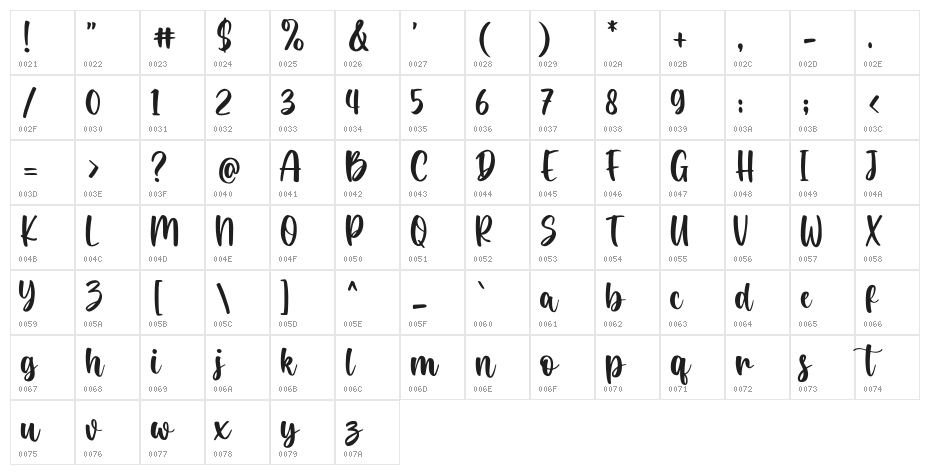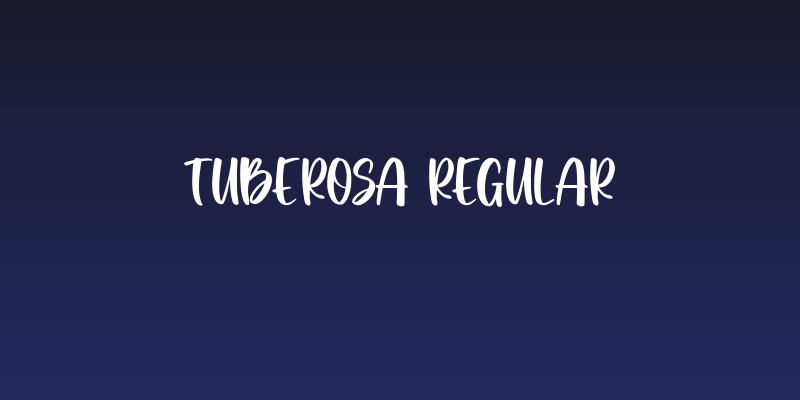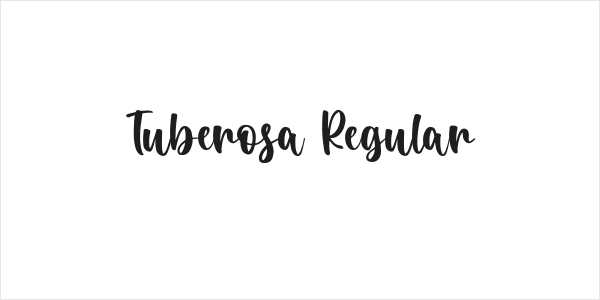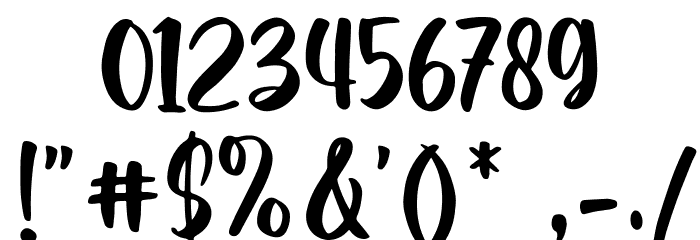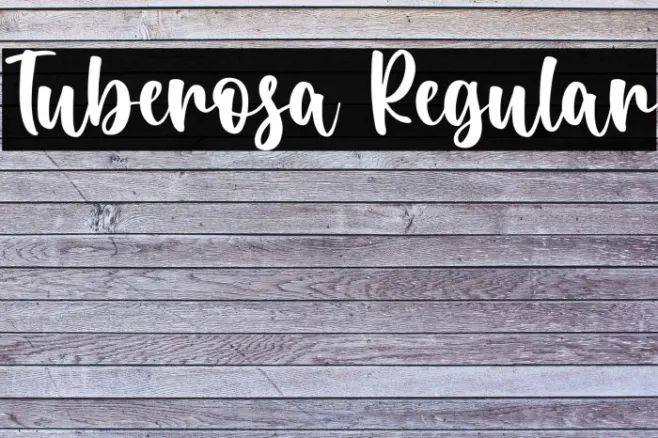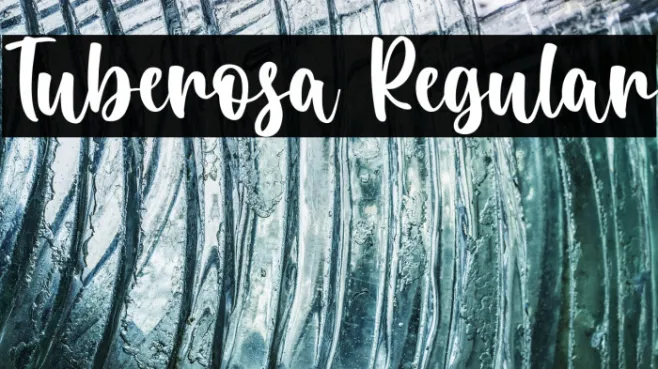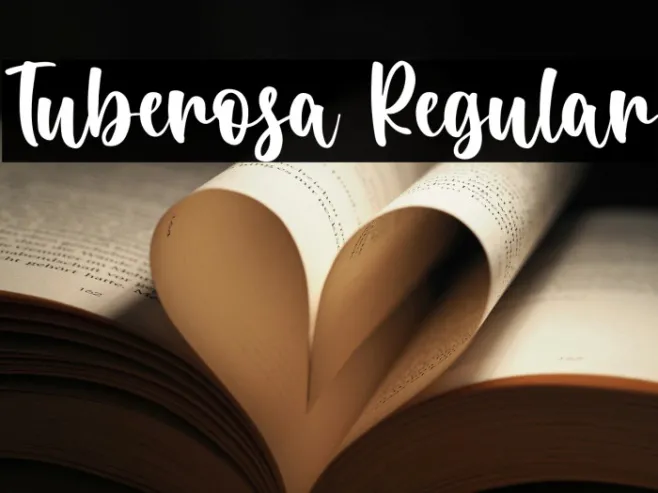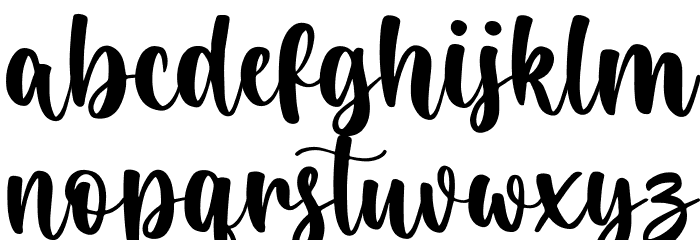
Tuberosa Regular Font
Tuberosa Regular Description
This font features a bold, flowing script style with a handwritten appearance. The characters are connected, giving it a cohesive and fluid look. The uppercase letters are slightly larger and more pronounced, while the lowercase letters maintain a consistent flow. The numbers and special characters are designed to match the overall style, ensuring uniformity across all elements. The strokes are thick and consistent, providing a strong visual impact. This font is ideal for projects that require a personal, creative touch, such as invitations, branding, or artistic designs.
| Use Case | Logos, Headlines, Artistic designs |
| Proposed Projects | Ideal for invitations, branding, artistic designs, and creative projects. |